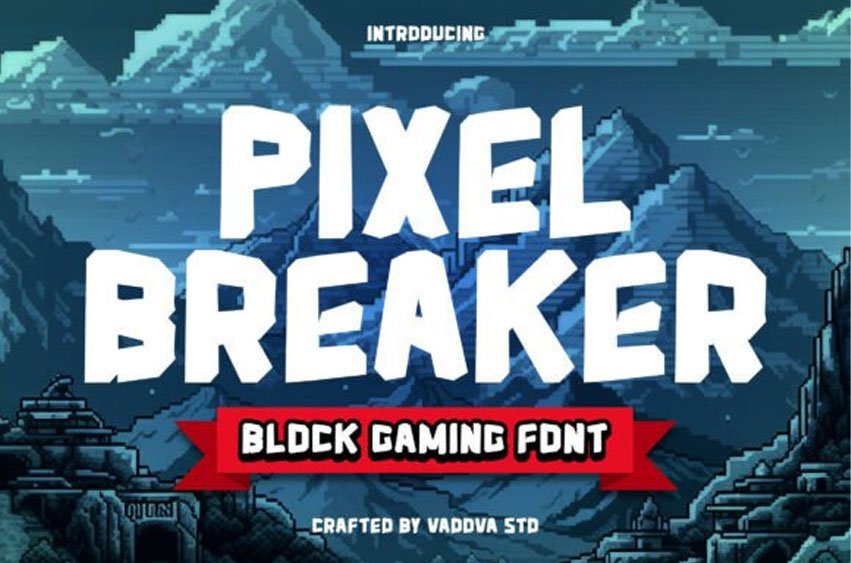
Pixel Breaker Font presents a bold block-style gaming font with sharp geometric construction and a strong arcade-inspired character. The design features chunky letterforms with a pixelated influence, delivering a dynamic and energetic visual impact. Provided in standard font formats, fully editable, and ready for digital and print use without additional plugins.
Suitable for game development projects, esports teams, streaming graphics, arcade branding, poster headlines, digital interfaces, mobile games, promotional visuals, and creative media that demand a bold, playful, and impactful gaming style.